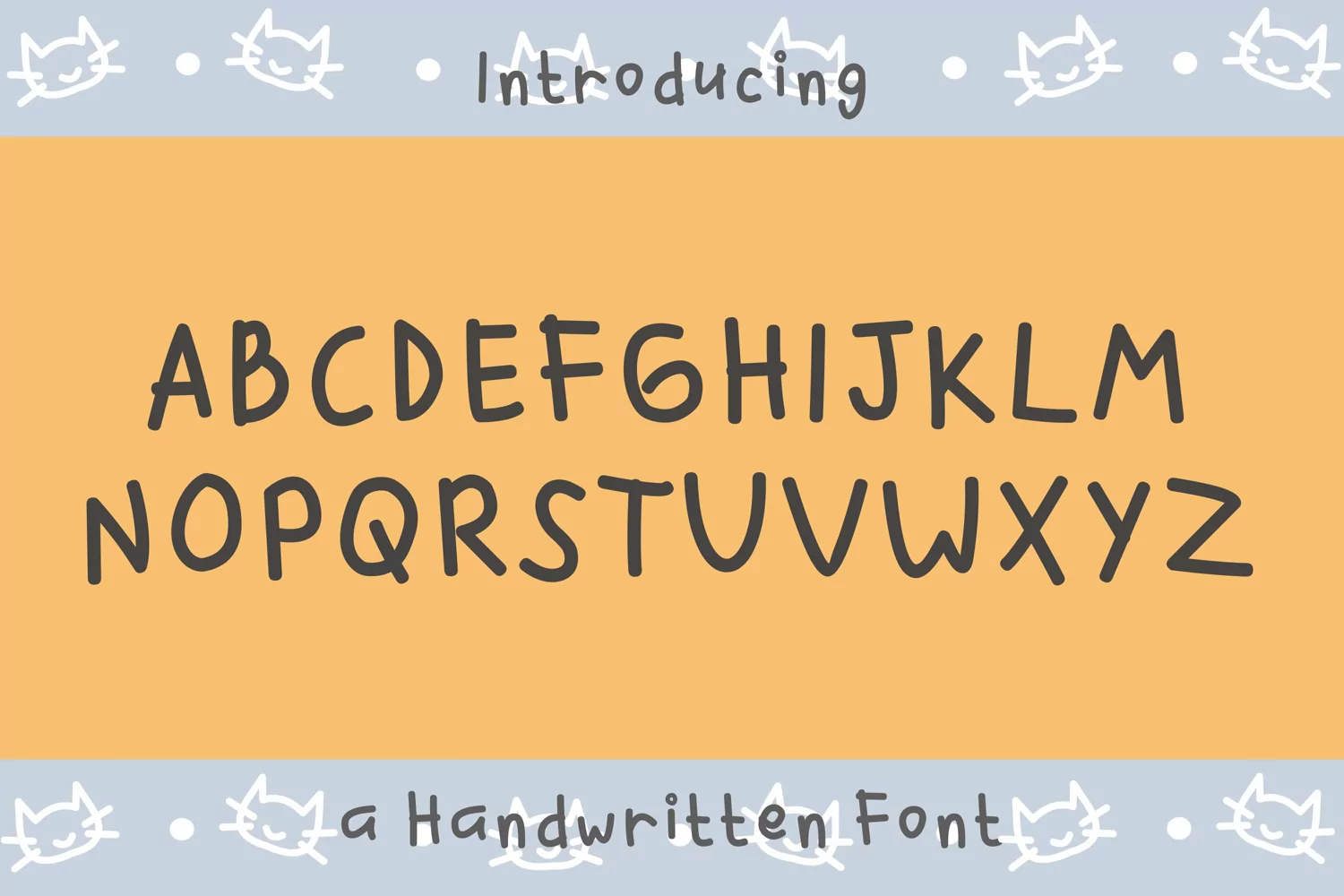
Smiley Cat is a simple and friendly handwritten font. Its natural and unique style makes it incredibly fitting to a large pool of designs. The only limit is your imagination!
Smiley Cat